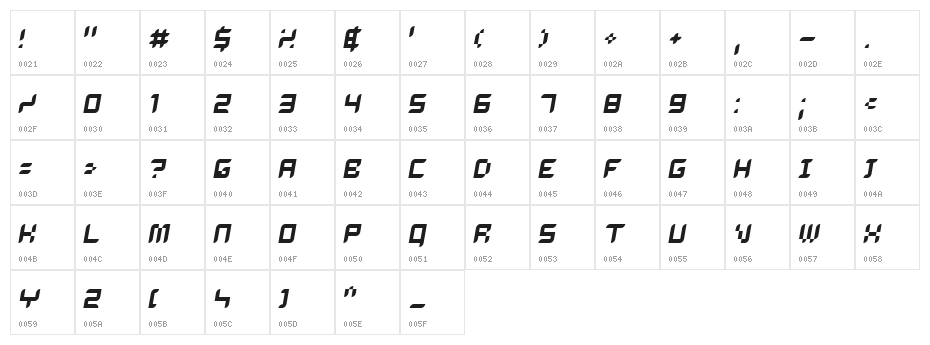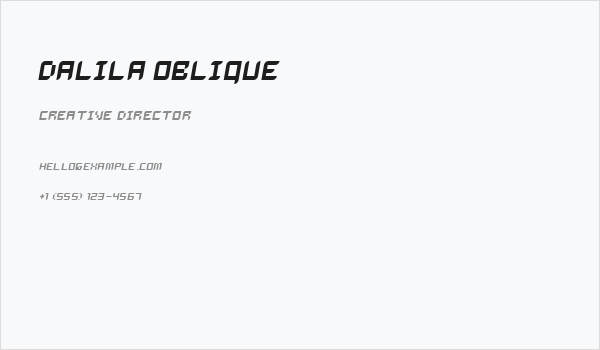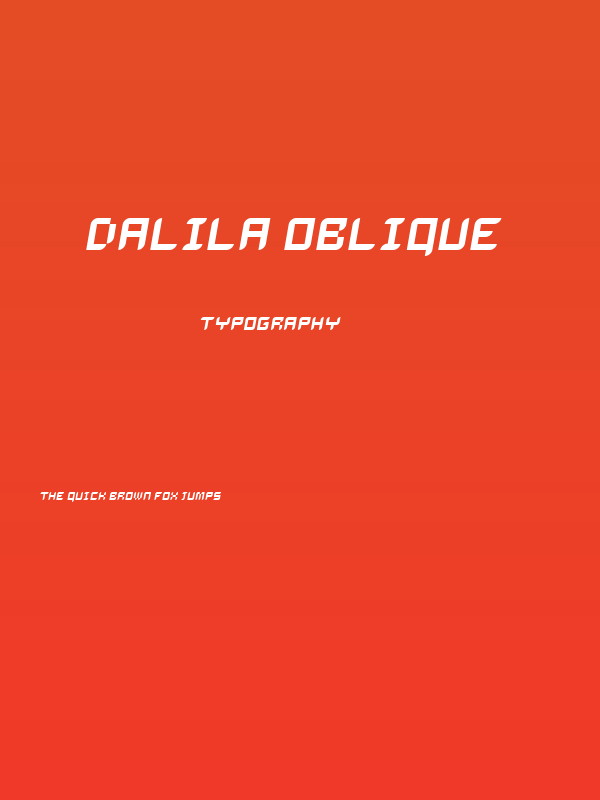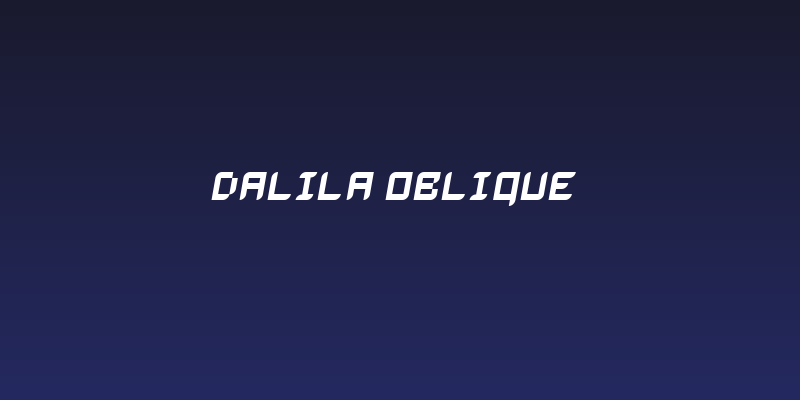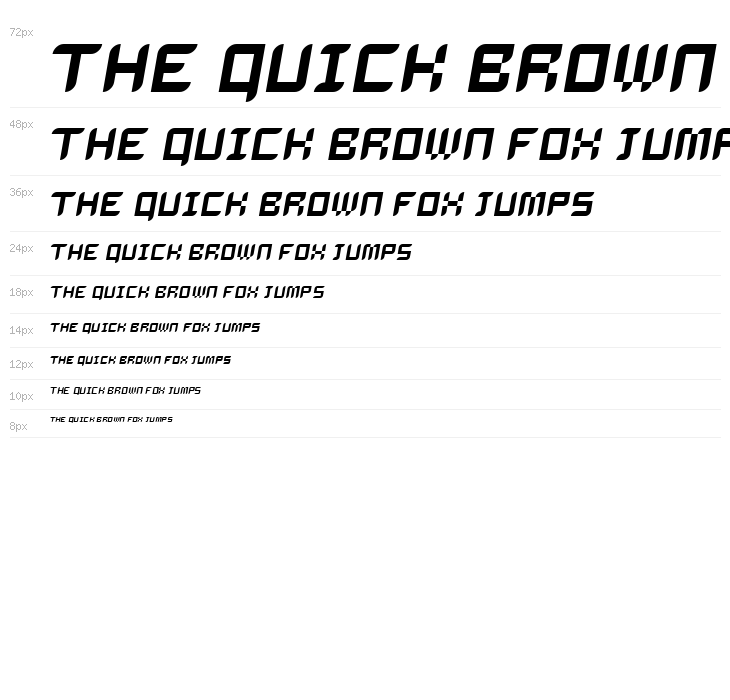
Dalila Oblique Font
Dalila Oblique Description
This font features a dynamic and modern oblique style, characterized by its forward-leaning slant and bold, geometric shapes. The characters are designed with a consistent stroke width, giving it a uniform appearance. The uppercase and lowercase letters maintain a cohesive look, with angular cuts and sharp edges that add a sense of speed and movement. The numerals and special characters follow the same design principles, ensuring a harmonious overall look. This font's distinct style makes it suitable for projects that require a contemporary and energetic feel.